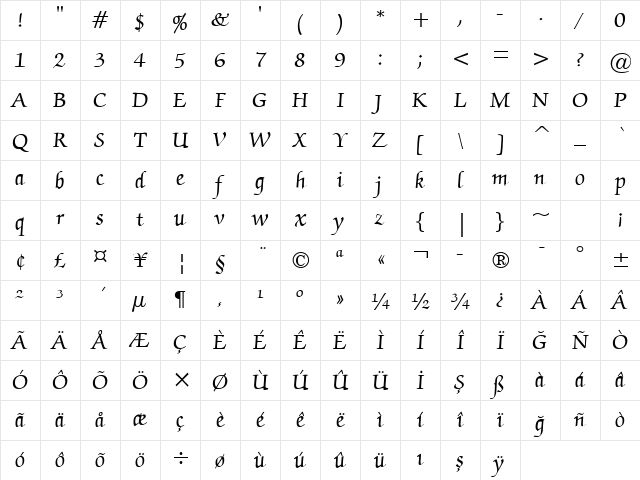
ZapfChan Md BT Medium
Design Context for ZapfChan Md BT
ZapfChan Md BT is a composed and adaptable typeface that performs quietly and consistently across a wide range of design contexts.
Pro Tip: Use ZapfChan Md BT in both headline and body roles to test its range before committing to a single application.